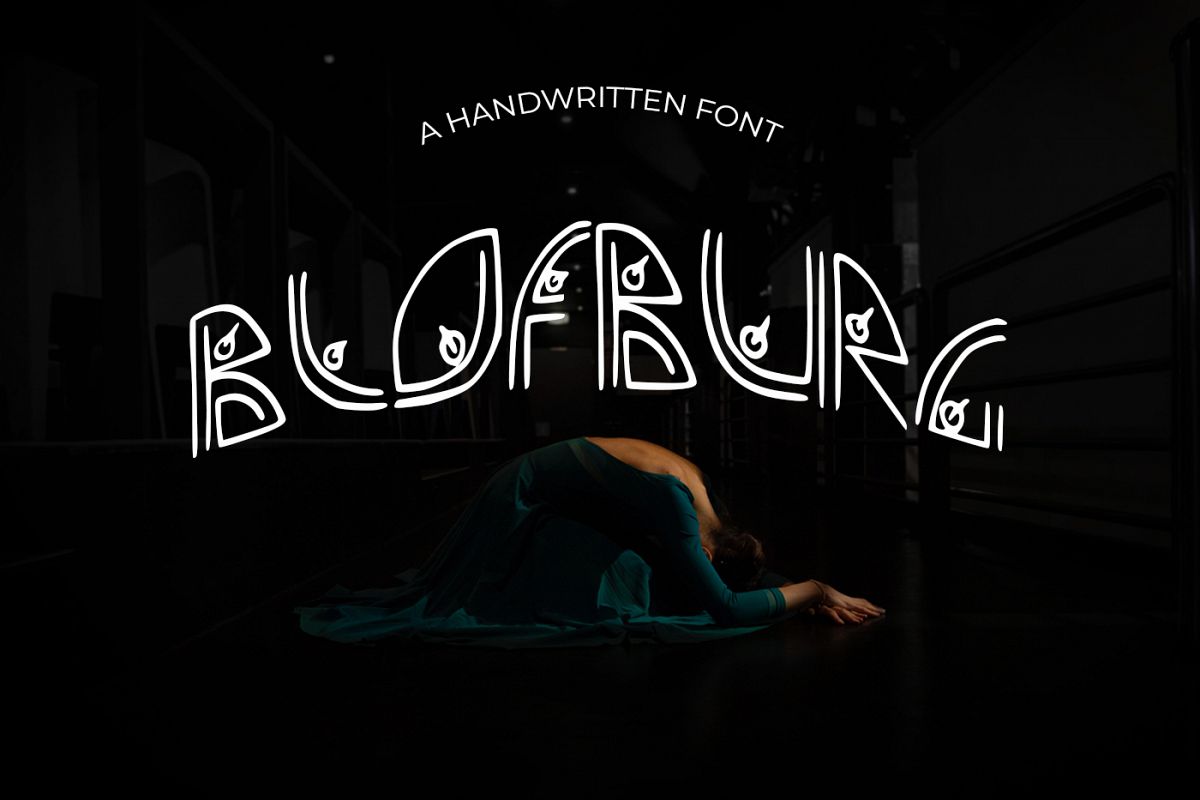
Blofburg Font
It's a wonderful font with a unique, detailed and handmade look.These fonts look amazing in all caps with a wide-set spacing if you want to try a classy look or beautiful on its own in the capital and lowercase letters for something completely timeless.Perfect for gorgeous logos, displays, headers, invitations, save the dates, weddings, titles, web layouts, and branding, etc.